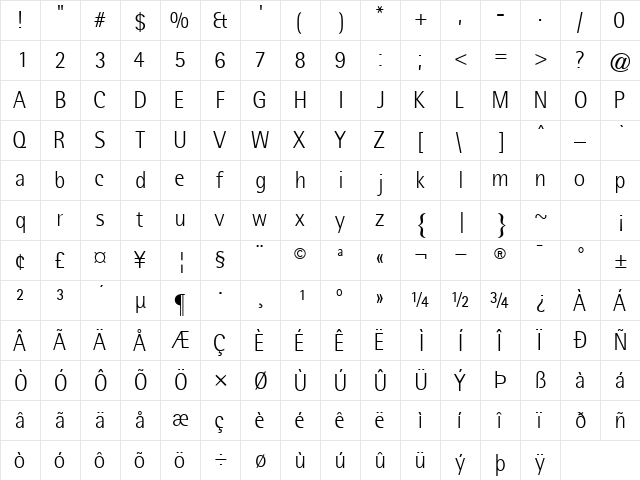
LibreSemiSansLightSSK Regular
Design Context for LibreSemiSansLightSSK Typeface
LibreSemiSansLightSSK offers clean, dependable letterforms without strong stylistic allegiance, making it a practical choice for designers who need flexibility. The delicate stroke weight brings airiness and refinement to layouts.